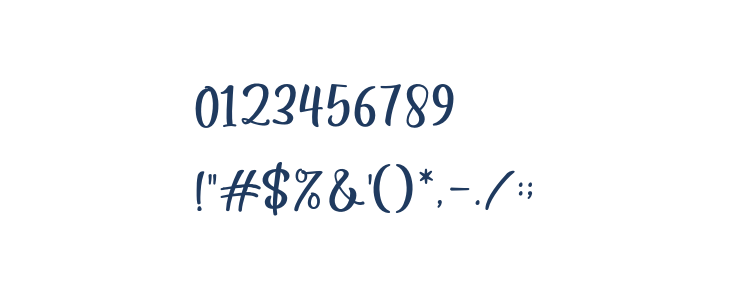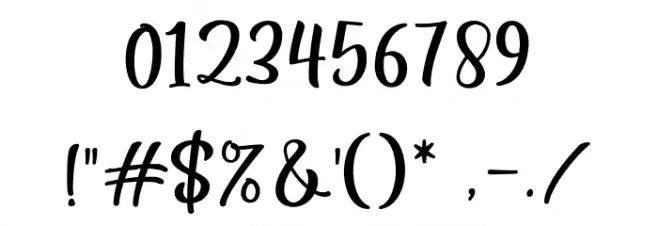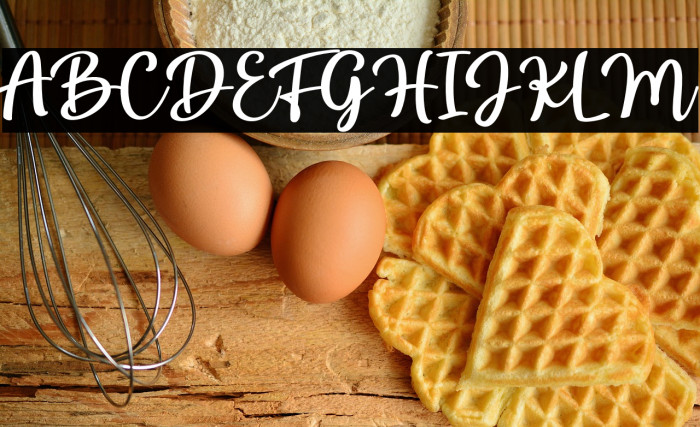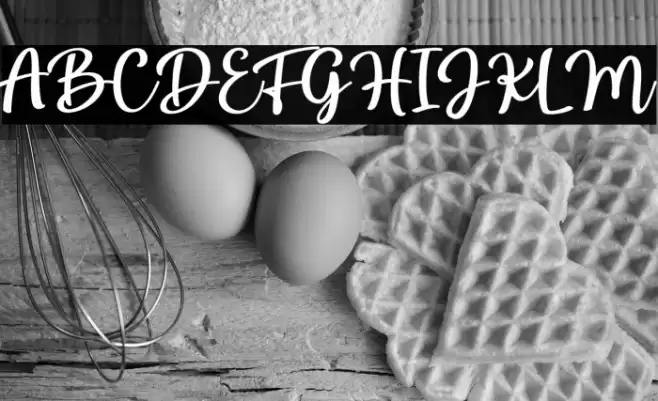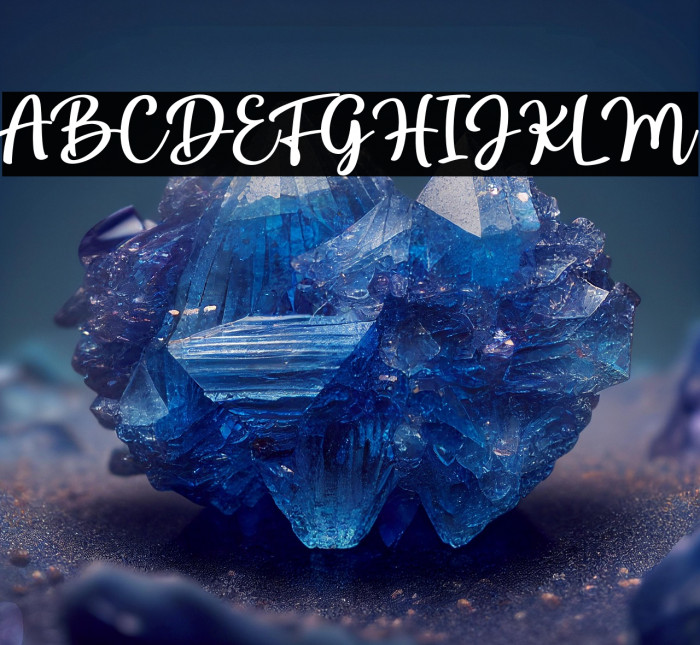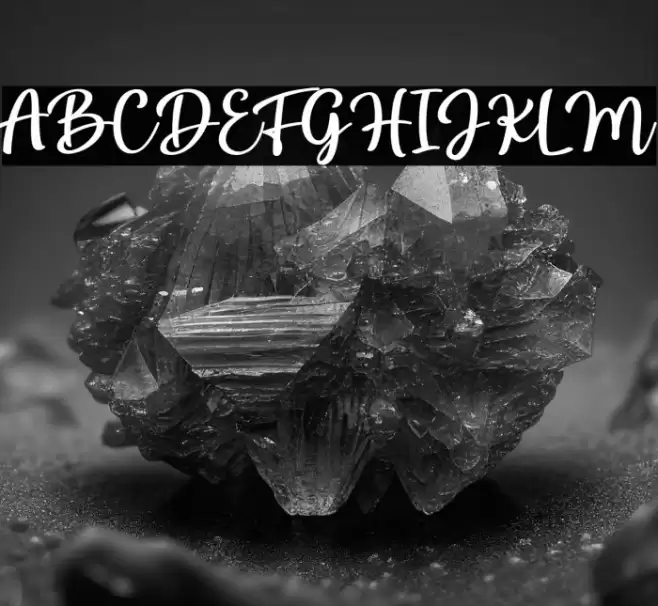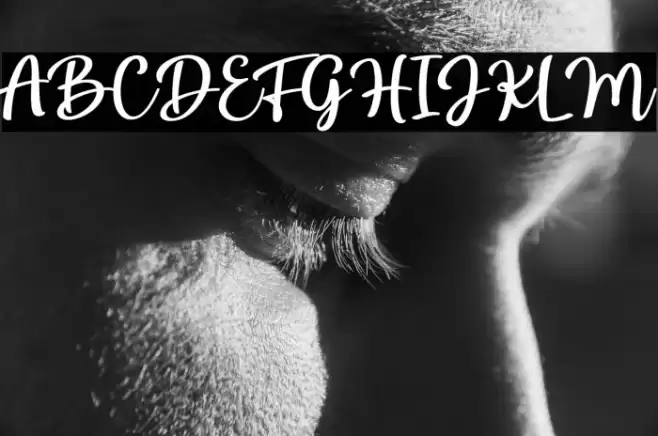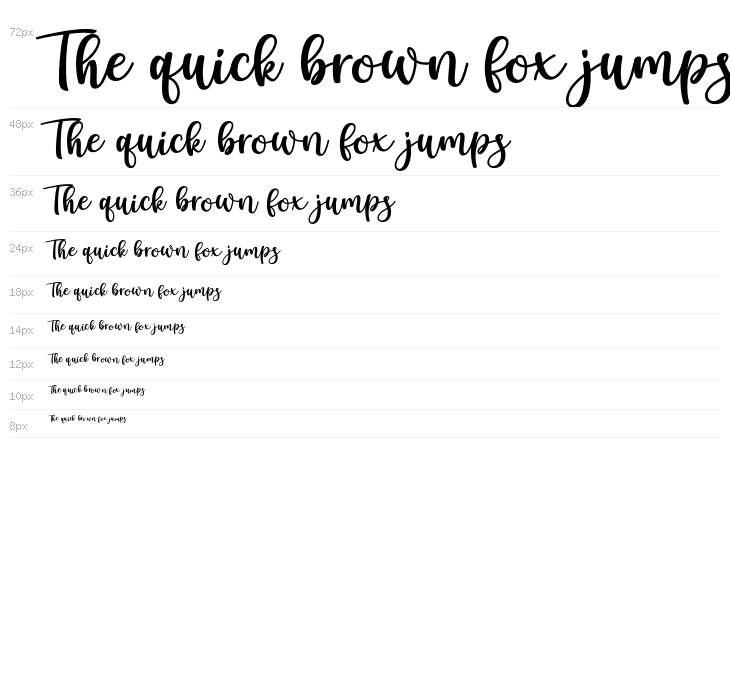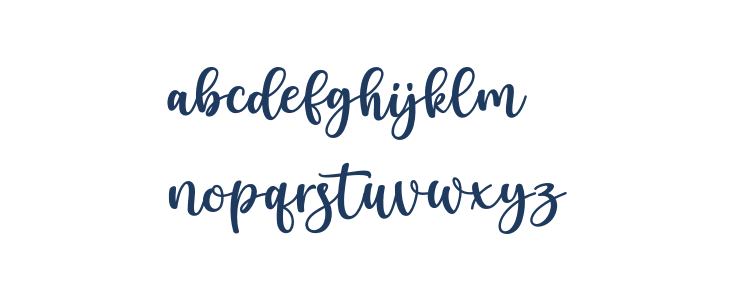
Winter Christmas Font
Winter Christmas Description
This font exudes a festive and playful charm, reminiscent of holiday cheer and winter festivities. The script style features smooth, flowing lines with a handwritten feel, giving it a personal and warm touch. The uppercase letters are bold and slightly slanted, while the lowercase letters maintain a consistent flow, adding to the overall elegance. The numerals and special characters are crafted with the same attention to detail, ensuring a cohesive look throughout. This font is perfect for creating inviting and joyful designs, ideal for holiday cards, festive banners, and seasonal branding.